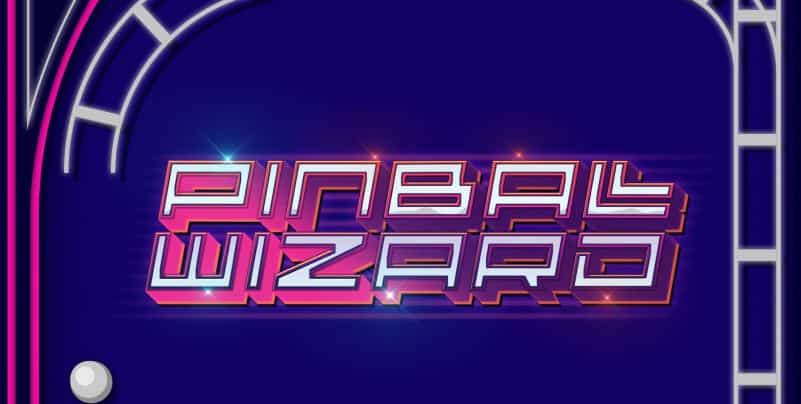
Free Play Display Font is a crisp and brazenly futuristic display typeface. With new bold & wide font that is perfectly suited for both retro & futuristic projects. Looking for that perfect touch to add that edge for your sport, techwear and cyberpunk designs? Look no further!
This product includes a bunch of alternates and ligatures so you can create unique designs that suit your needs.